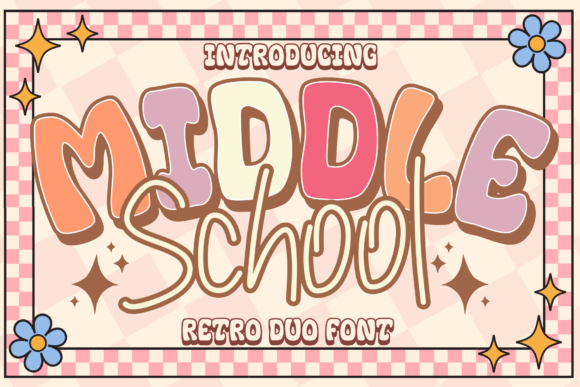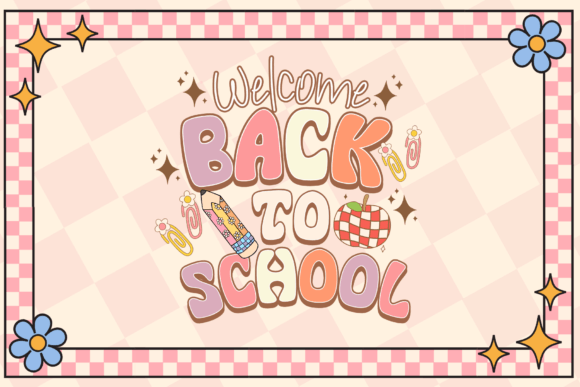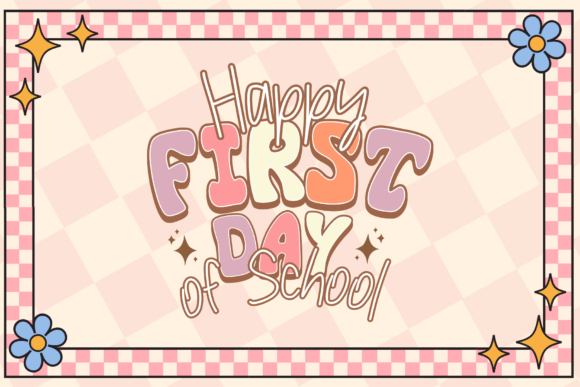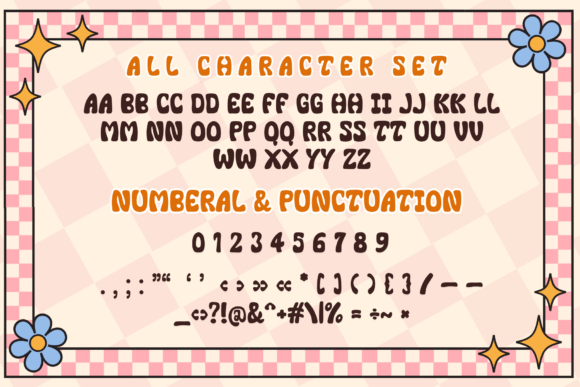
Middle School Font
About the Middle School Font
We are excited to introduce Middle School Font, a must-have typeface for any serious designer. Middle School is a stylish retro duo font, combining a display and handwritten typeface that exudes a cool and groovy aesthetic. Ideal for all your hippie-inspired designs, It embodies playfulness and authenticity and is the perfect choice for all your favorite projects, or even for blog posts, logos, branding, ads, invitations, greeting cards, planners, photo albums, decorations, and much more. Add it to any of your designs, and enjoy the results!
Middle School’s playful retro style shines in headlines, logos, and short-form content like posters or social media graphics. Its hand-drawn feel works well for packaging that aims for a vintage or artisanal vibe. However, the display typeface isn’t suitable for extended body text or UI elements; its informality would hinder readability.
Pairing it with a clean sans-serif like Open Sans for body copy creates a strong visual contrast, balancing the playful energy of Middle School with a professional touch. Alternatively, a classic serif like Garamond adds sophistication and refinement, while a geometric sans-serif like Futura provides a modern counterpoint.
The font’s overall personality is undeniably fun and nostalgic, yet versatile enough to adapt to different branding needs. It’s best suited for brands targeting a younger demographic or those wishing to evoke a sense of carefree retro cool.
Middle School Font Usage Examples
Middle School Font Example